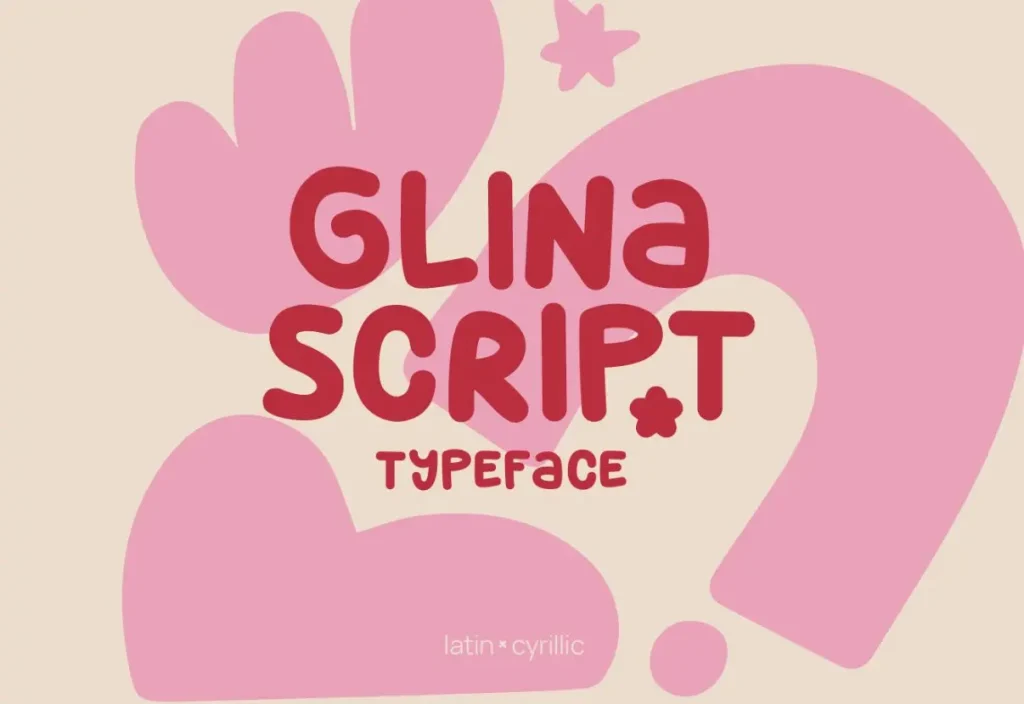
Glina Script is a free handwritten typeface that supports both Latin and Cyrillic alphabets and comes in two distinct styles. You can use it for both desktop and commercial projects under its open license terms.
The typeface works well for children’s books, casual branding, greeting cards, and social media graphics that need a personal touch.